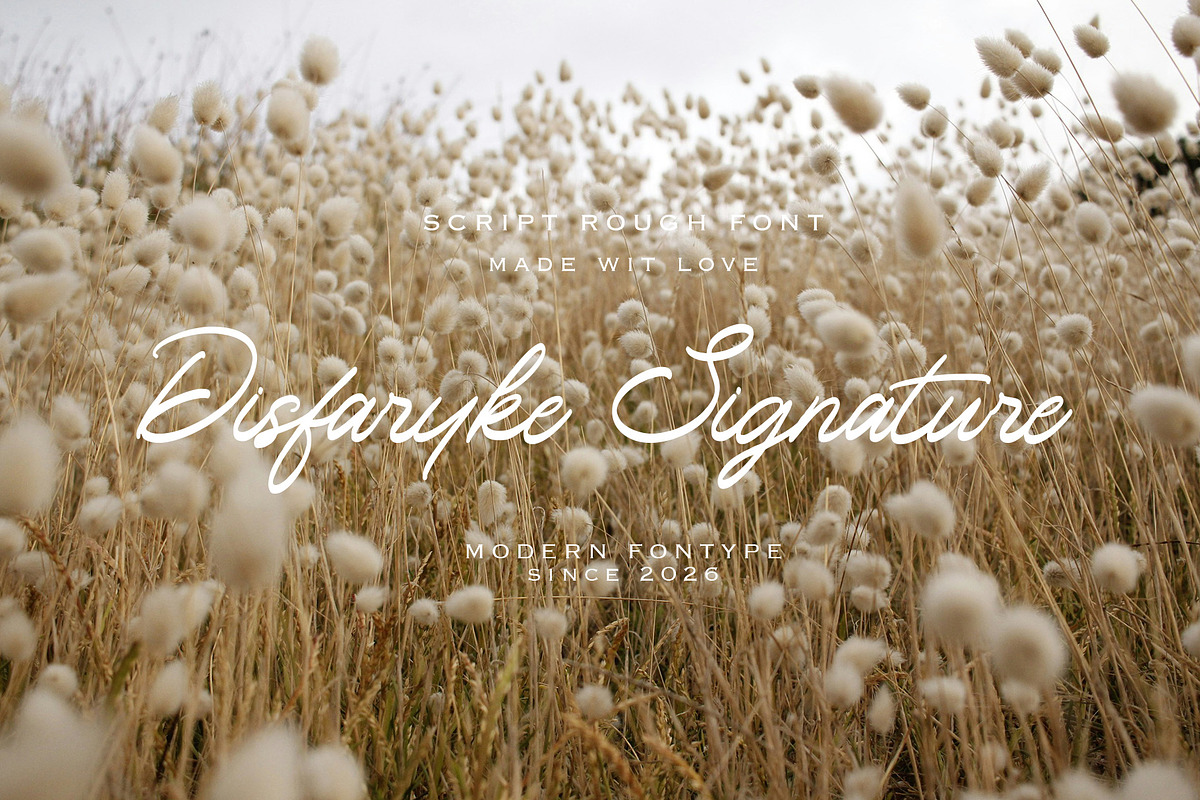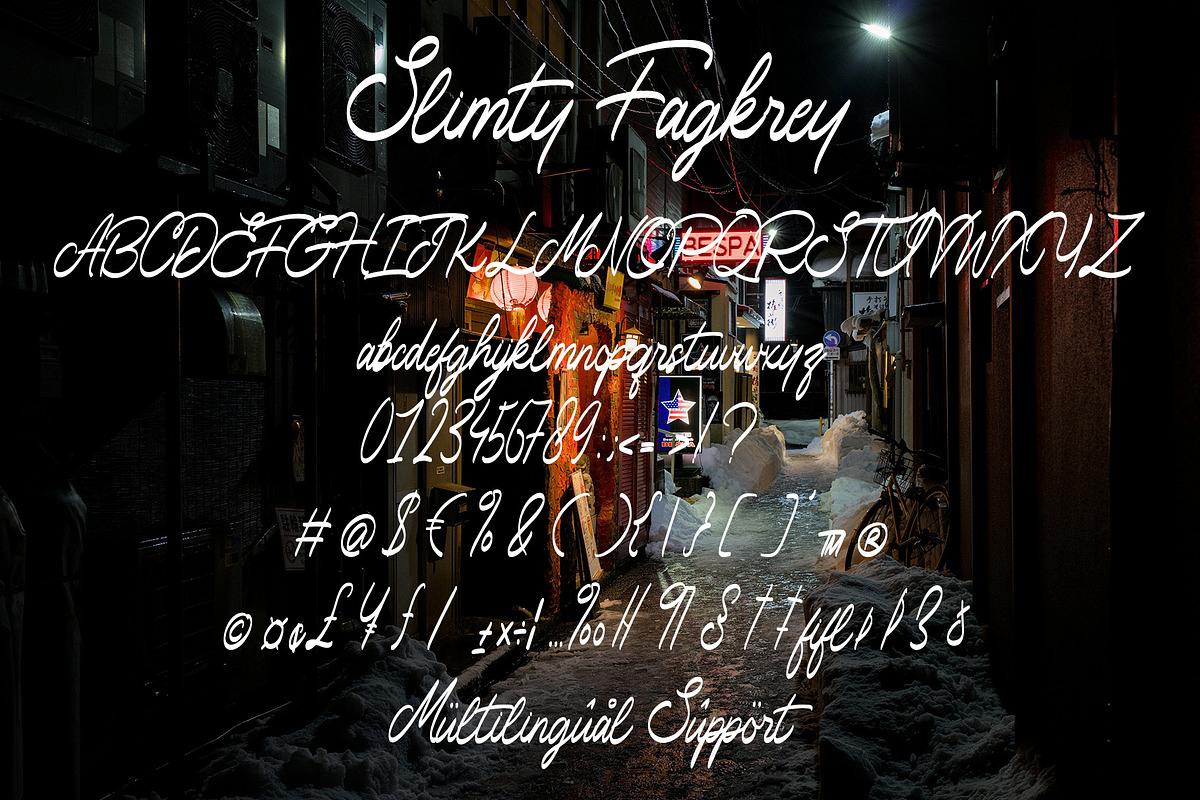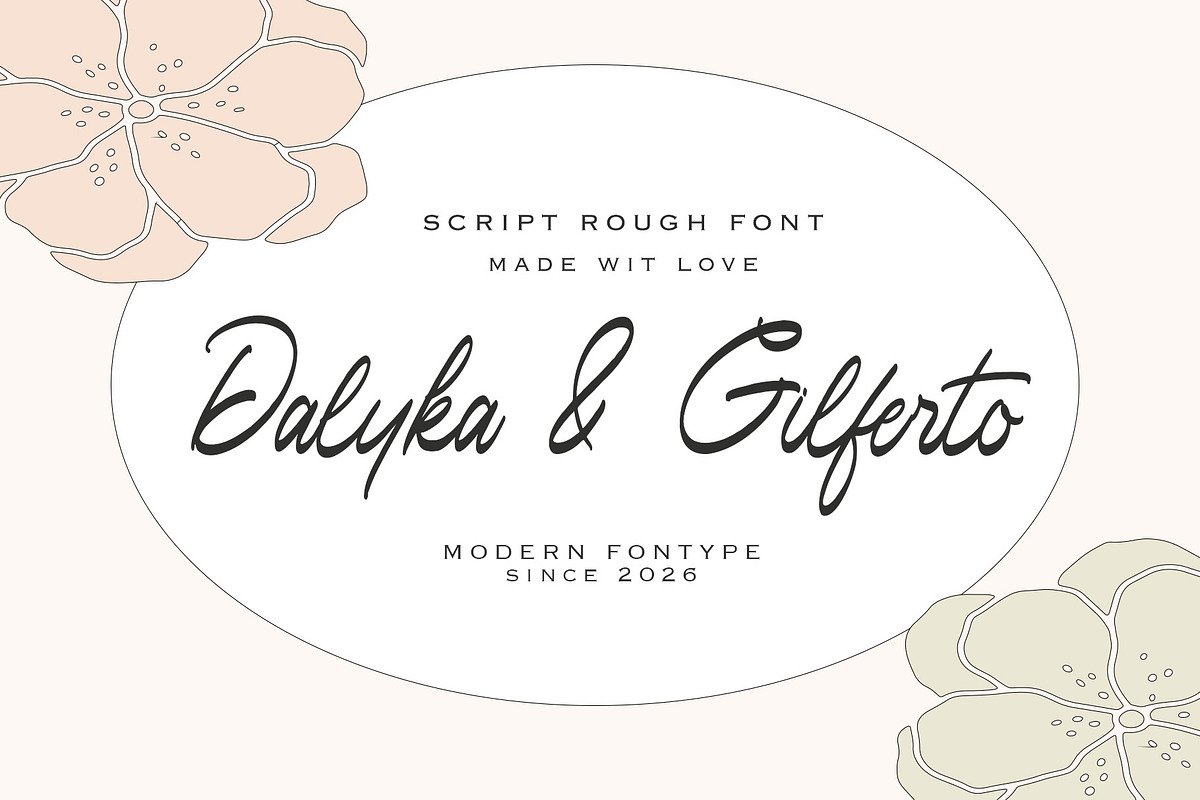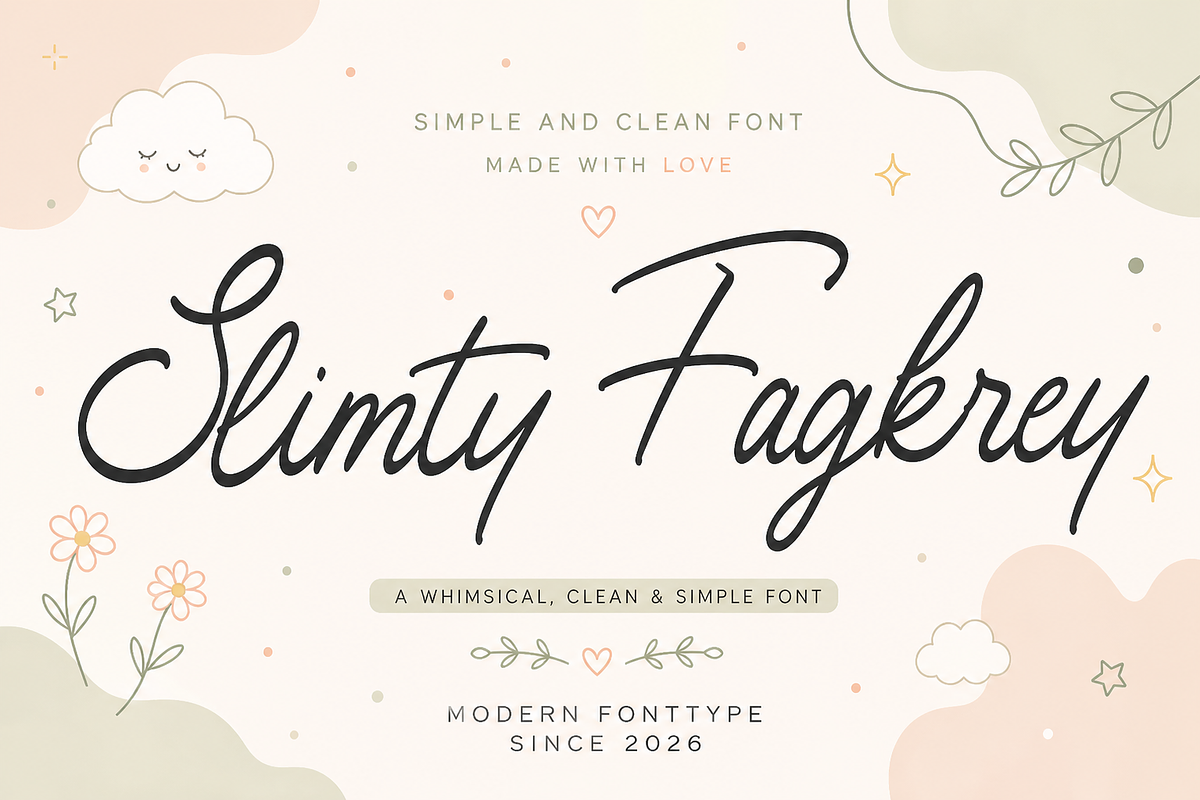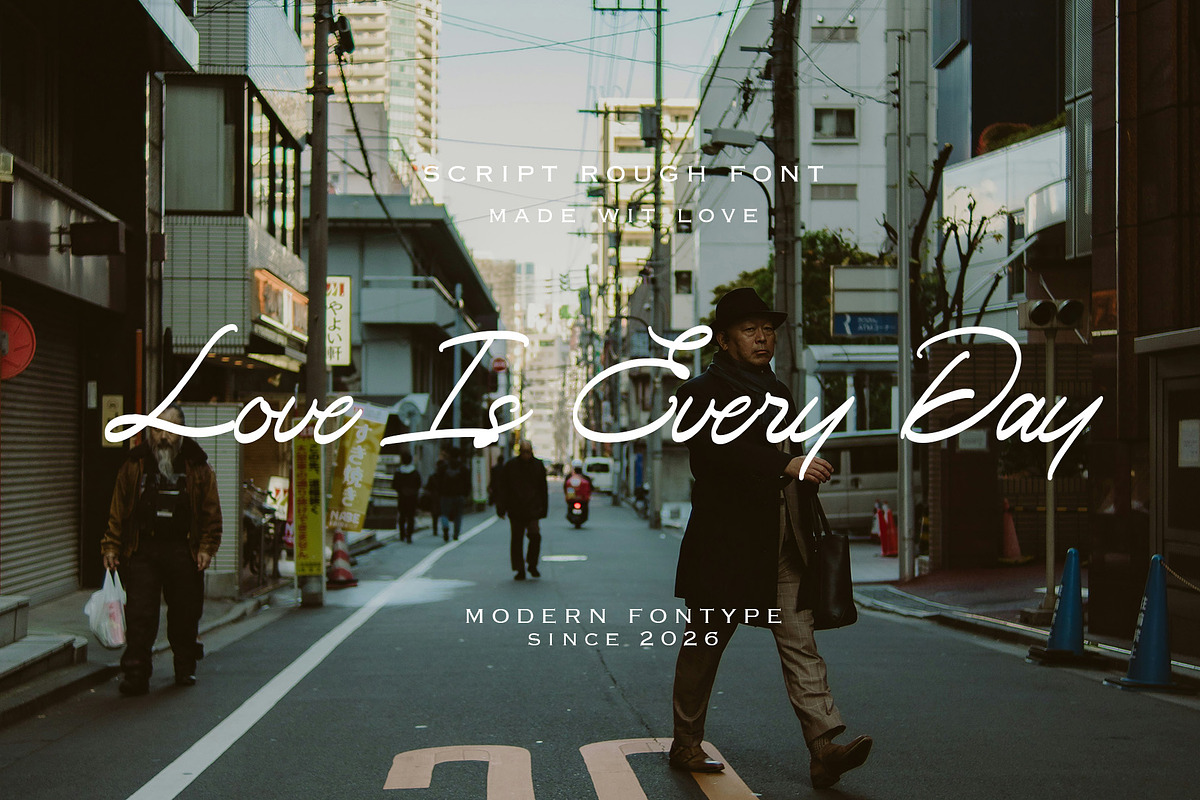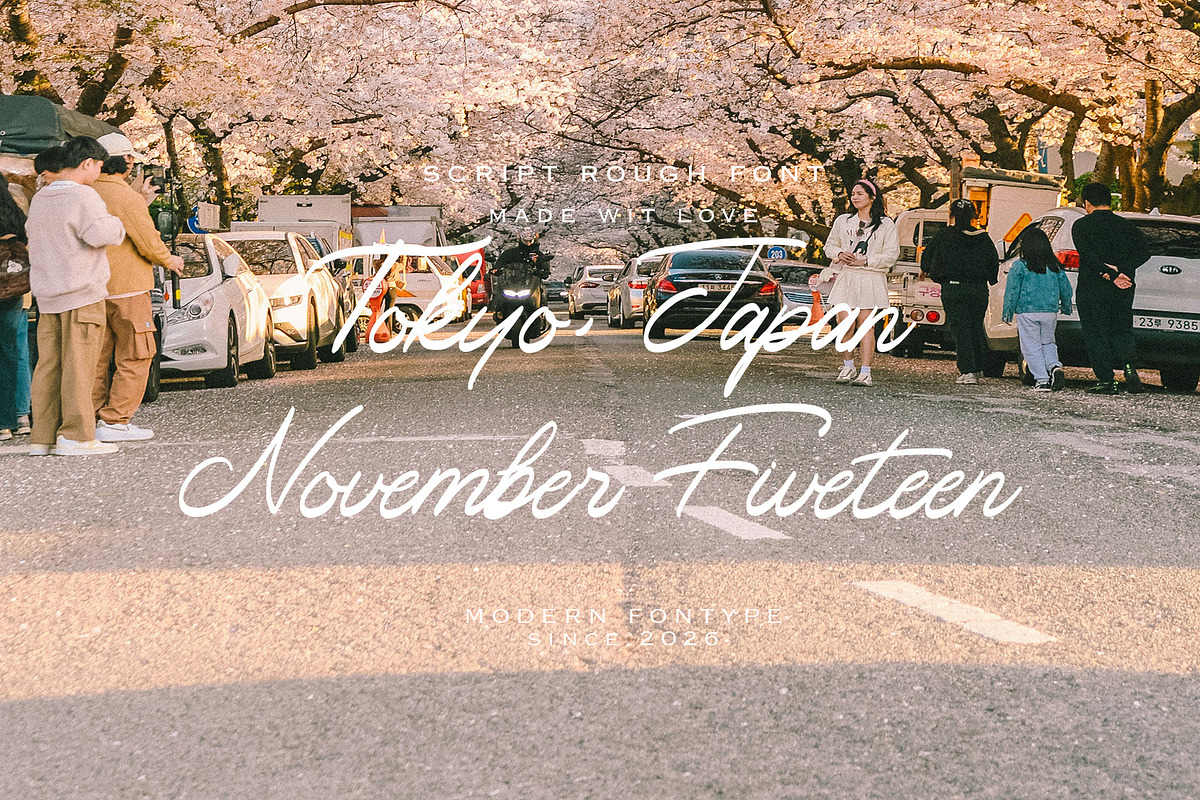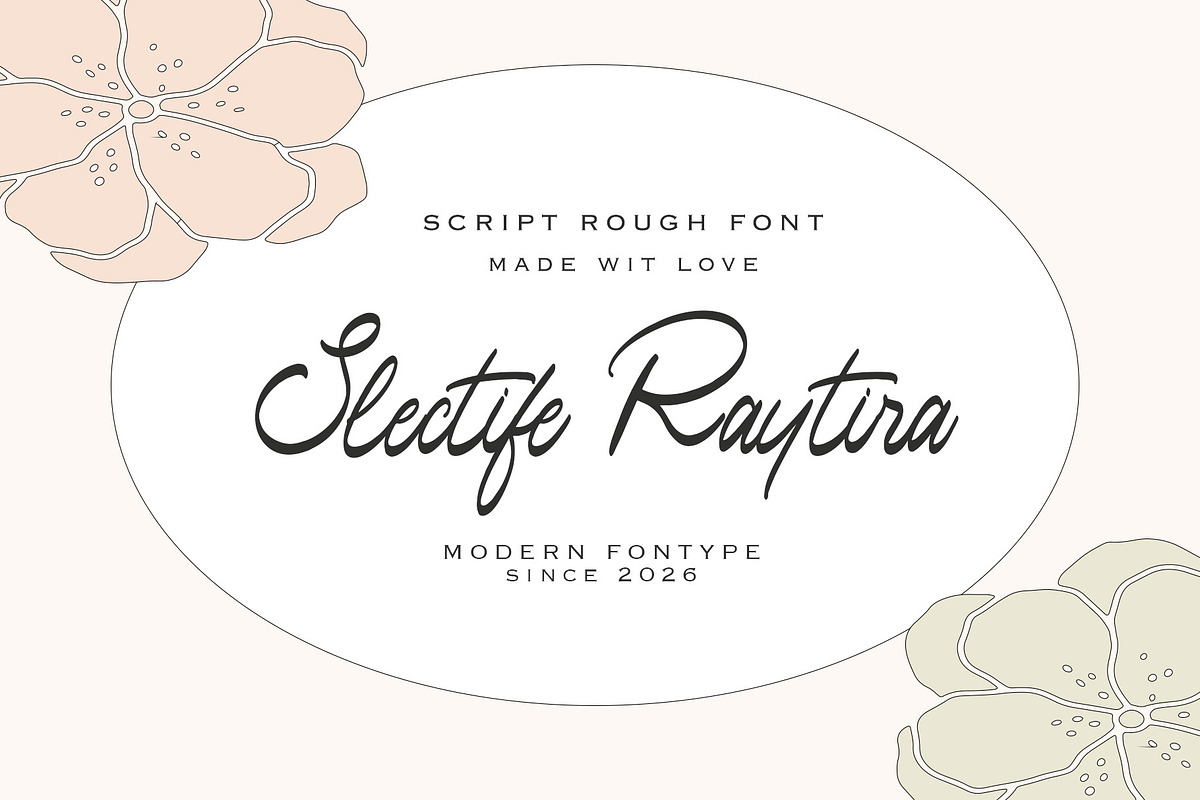
Slimty Fagkrey
Slimty Fagkrey is a whimsical handwritten script font crafted with a clean, soft, and elegant personality. Featuring smooth flowing strokes and minimalist letterforms, this typeface delivers a natural handwritten feel that looks modern, friendly, and effortlessly stylish.
Designed for creators who love simplicity with charm, Slimty Fagkrey works beautifully for branding, wedding invitations, feminine logos, social media posts, packaging, stationery, and aesthetic design projects. Its delicate curves and airy composition create a calm and warm visual atmosphere, making every design feel personal and heartfelt.
With a balance between modern calligraphy and casual handwriting, this font is perfect for projects that need a clean yet expressive touch.
Wedding Invitations
Feminine Branding
Beauty & Skincare Packaging
Lifestyle Branding
Greeting Cards
Quotes & Typography
Craft & DIY Projects
Modern Minimalist Design